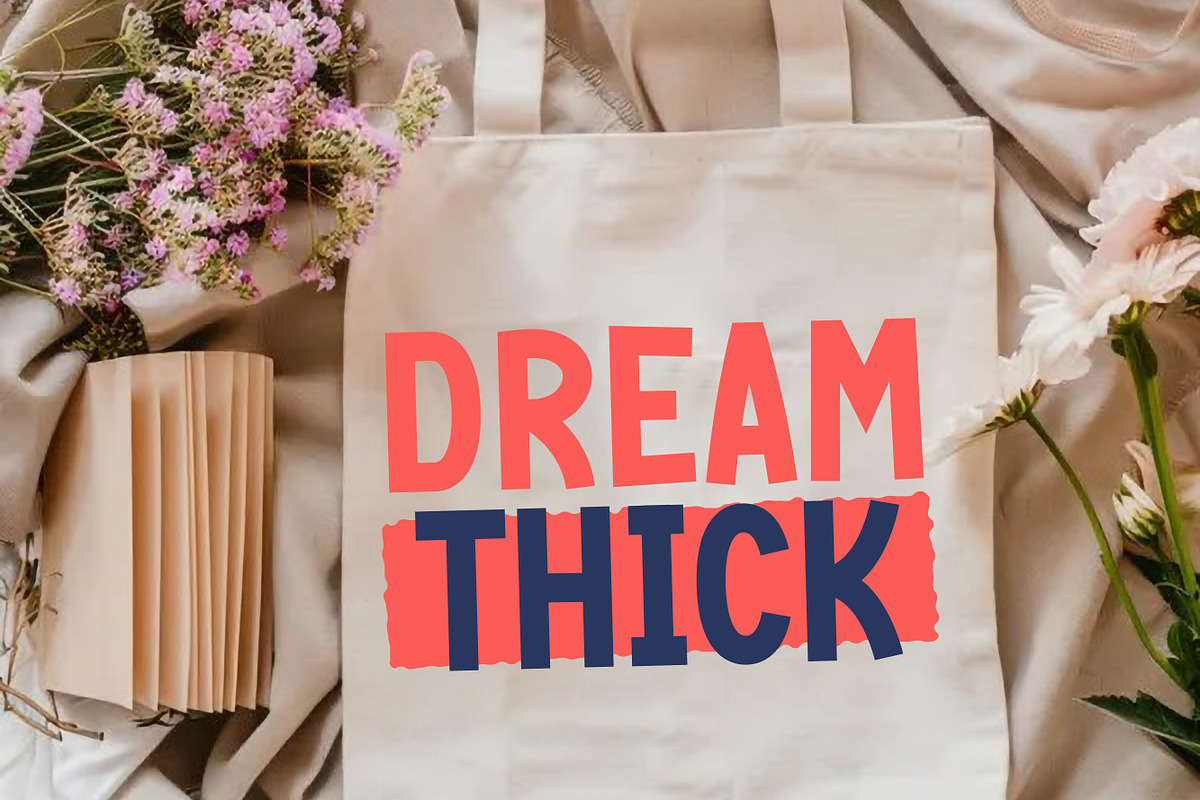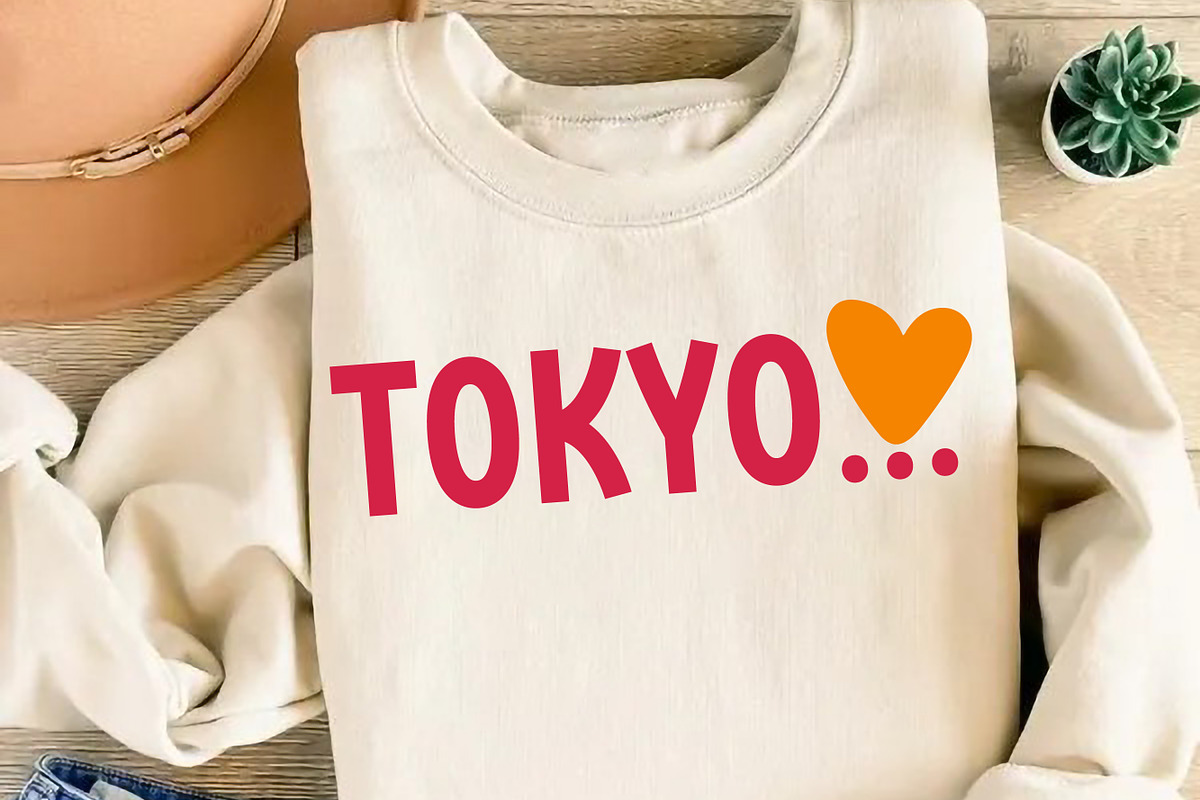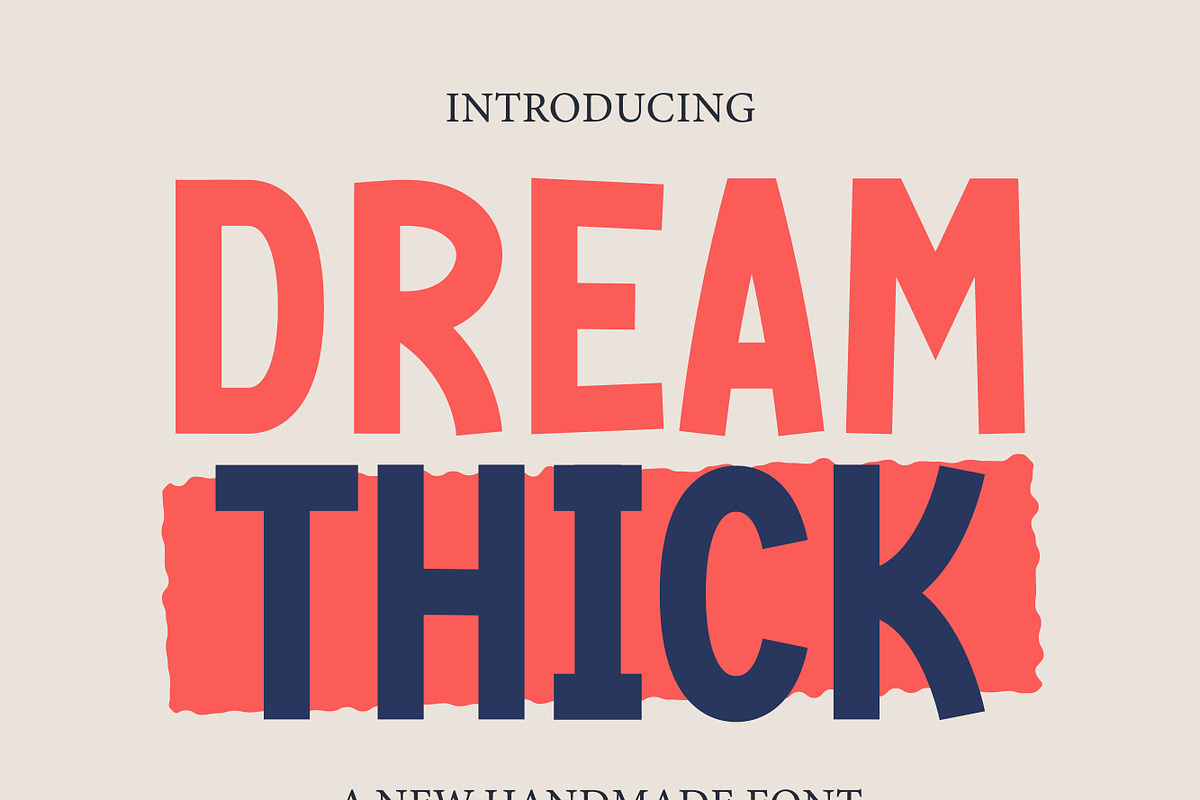
Dream Thick
Dream Thick is a bold display font that stands out with its thick letters and playful style. It’s perfect for grabbing attention in posters, headlines, and logos. The rounded shapes give it a friendly and modern look, making it great for creative projects and designs that need a strong impact.